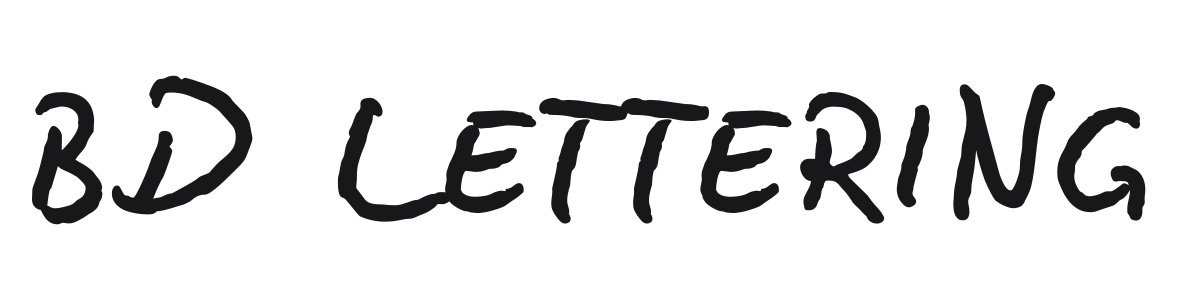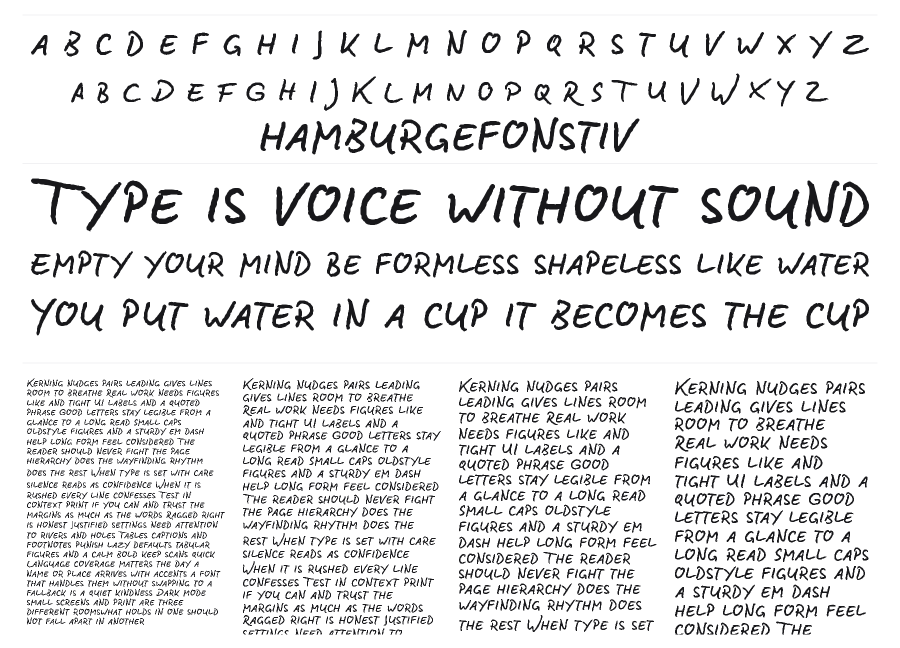
BD Lettering
BD Lettering is a comic-lettering font rooted in the tradition of Franco-Belgian bande dessinée. Its name is a direct tribute to that lineage, and every design decision chases the look of a skilled hand-letterer: irregular stroke widths, varied character shapes, and OpenType alternates that ensure no two adjacent letters look stamped from the same mold. The result reads as genuinely handwritten rather than mechanically applied.